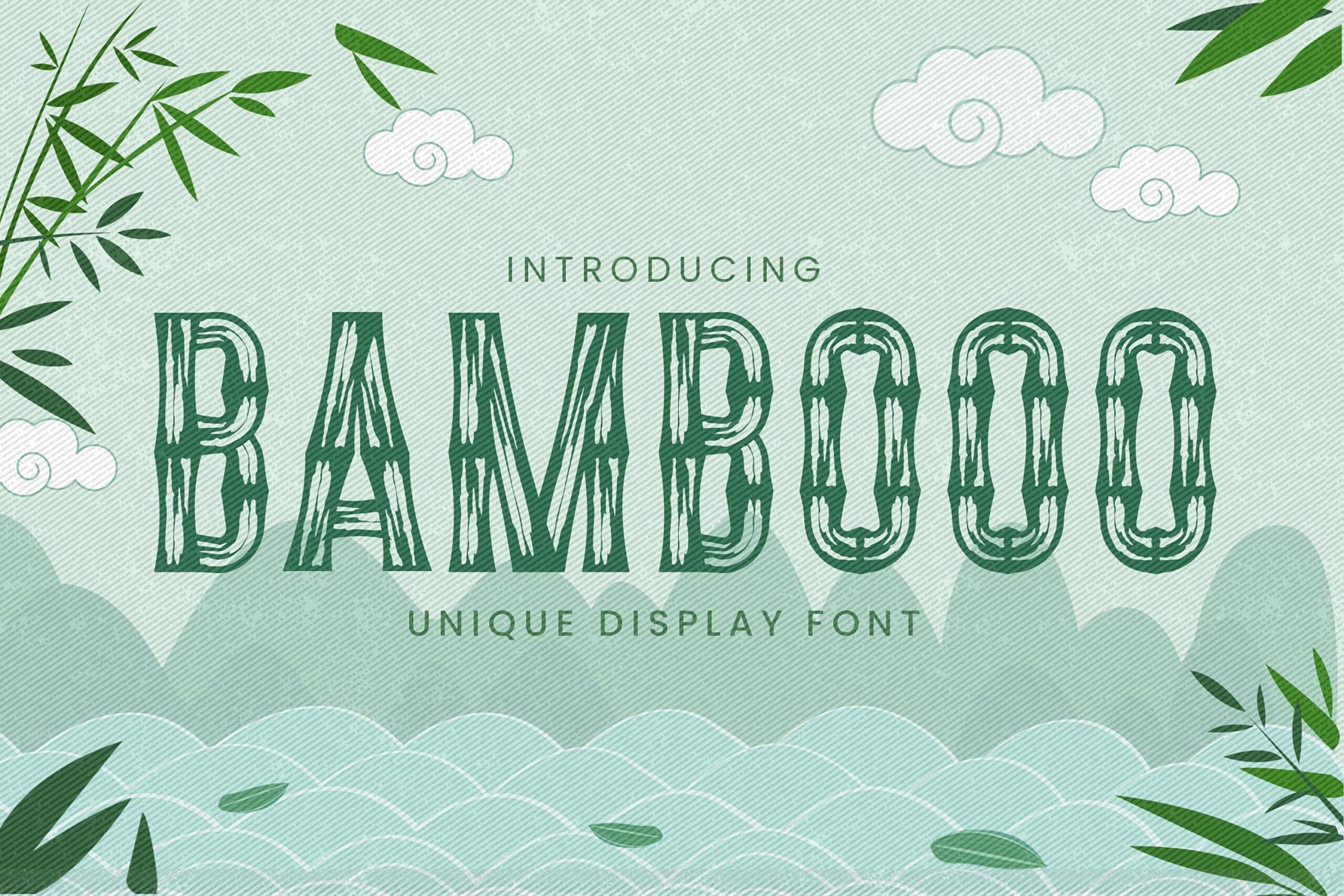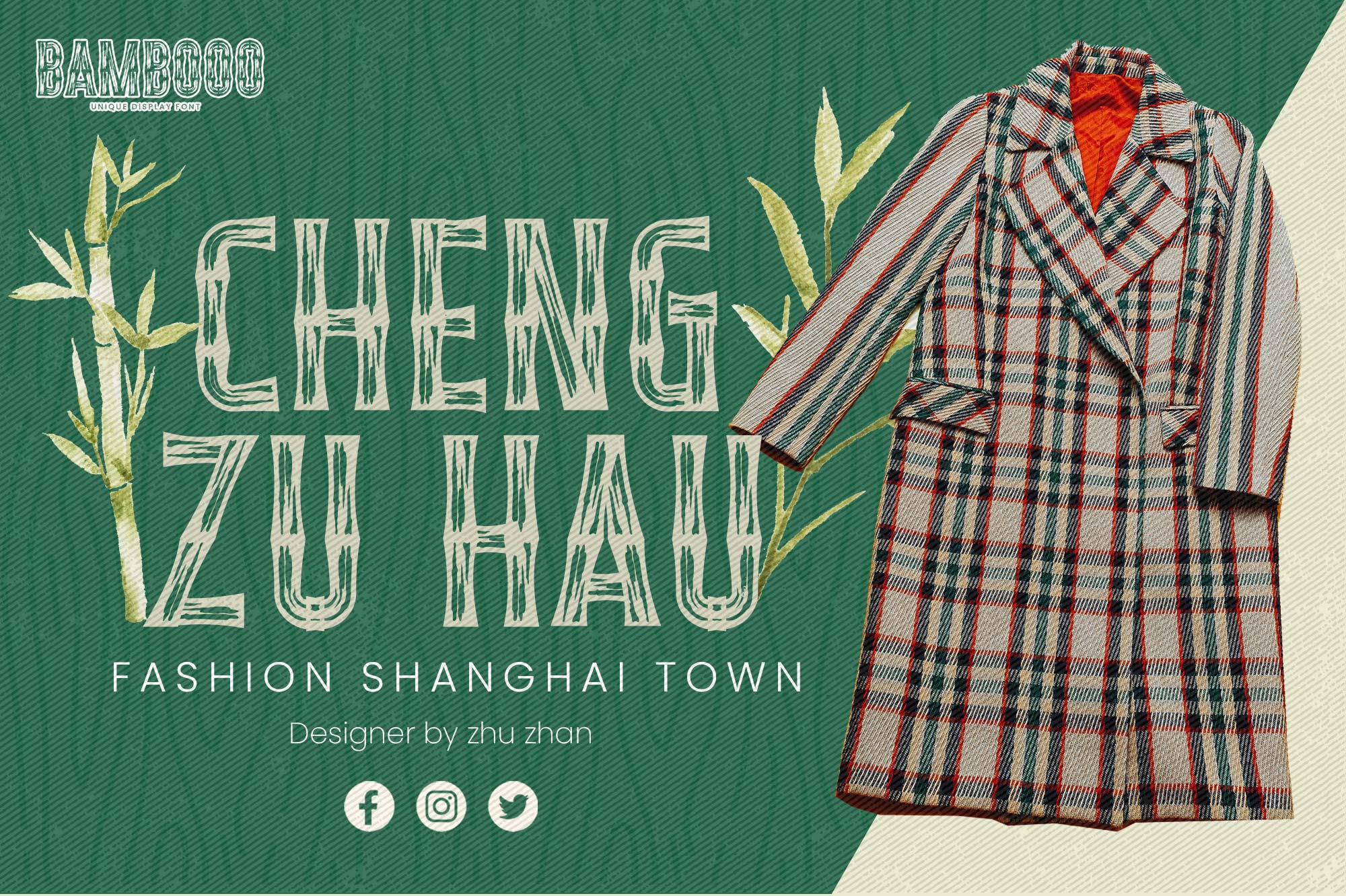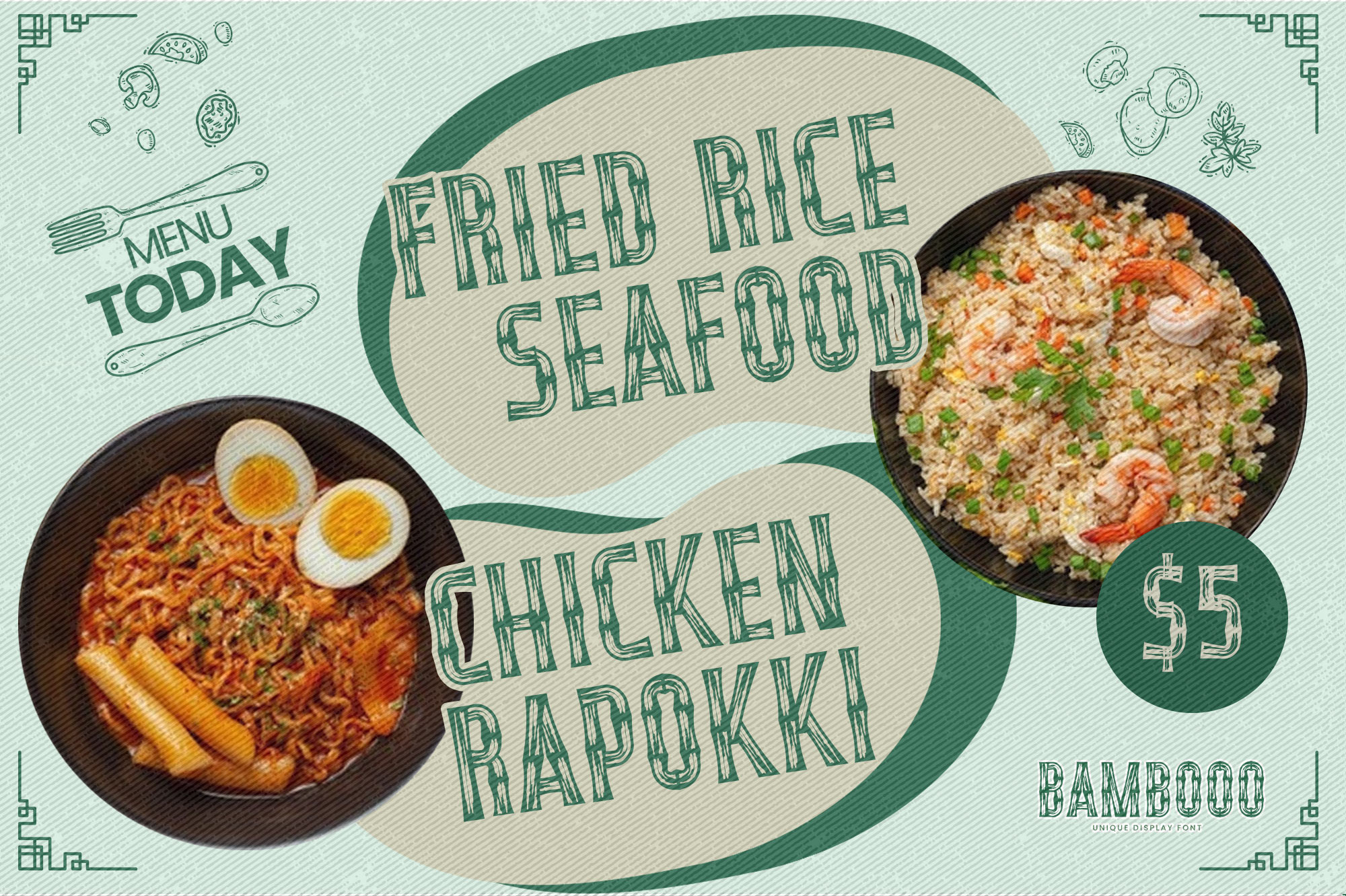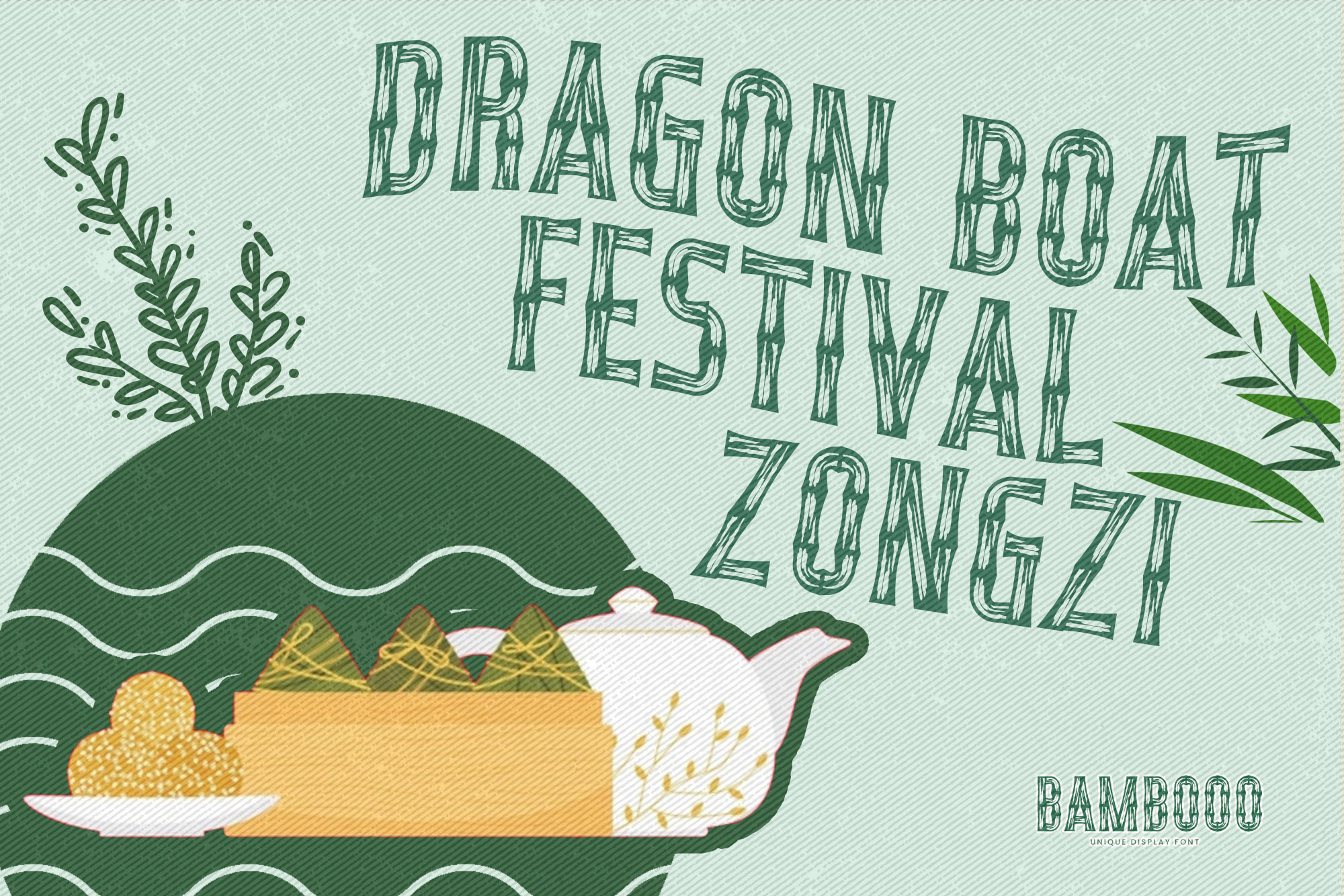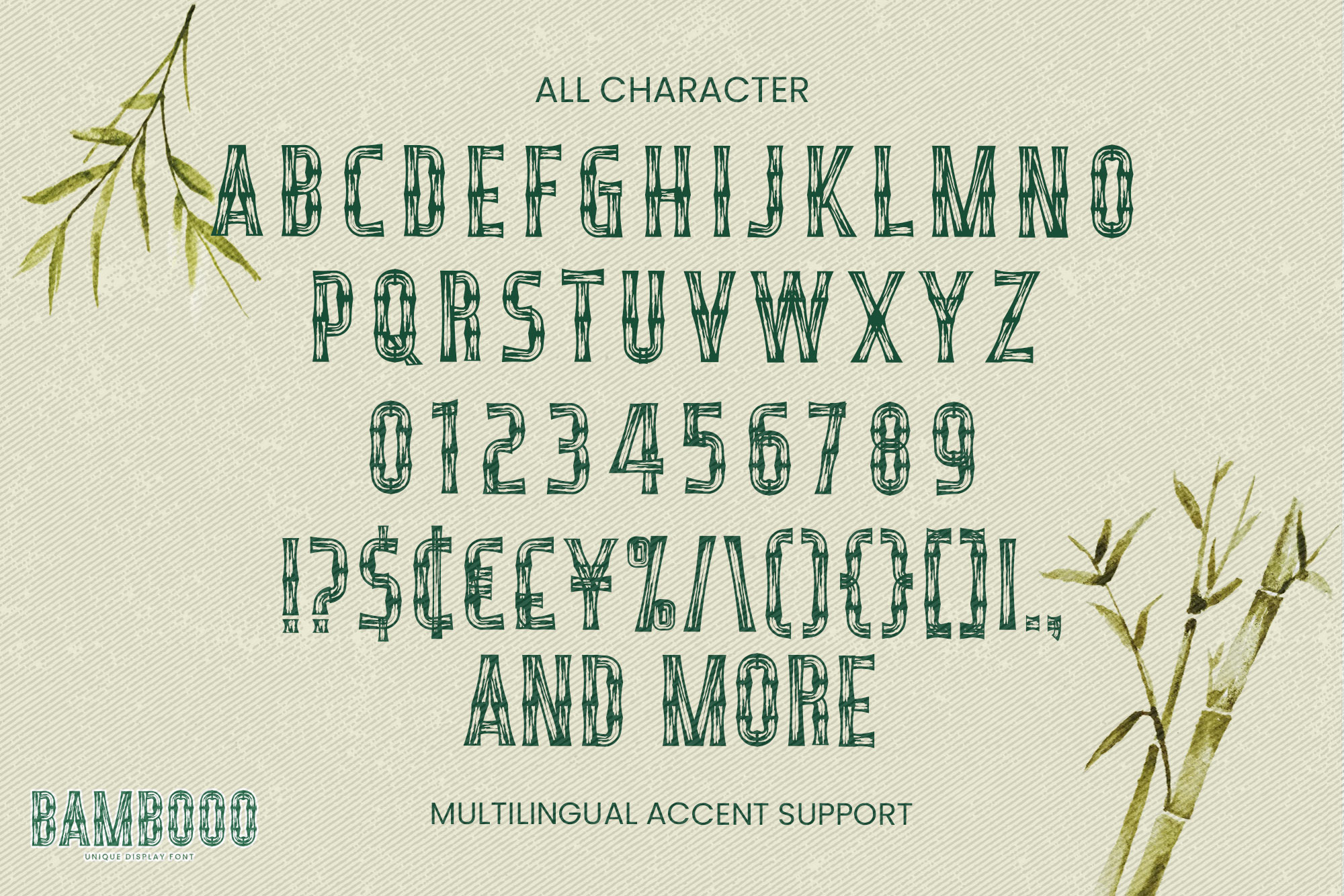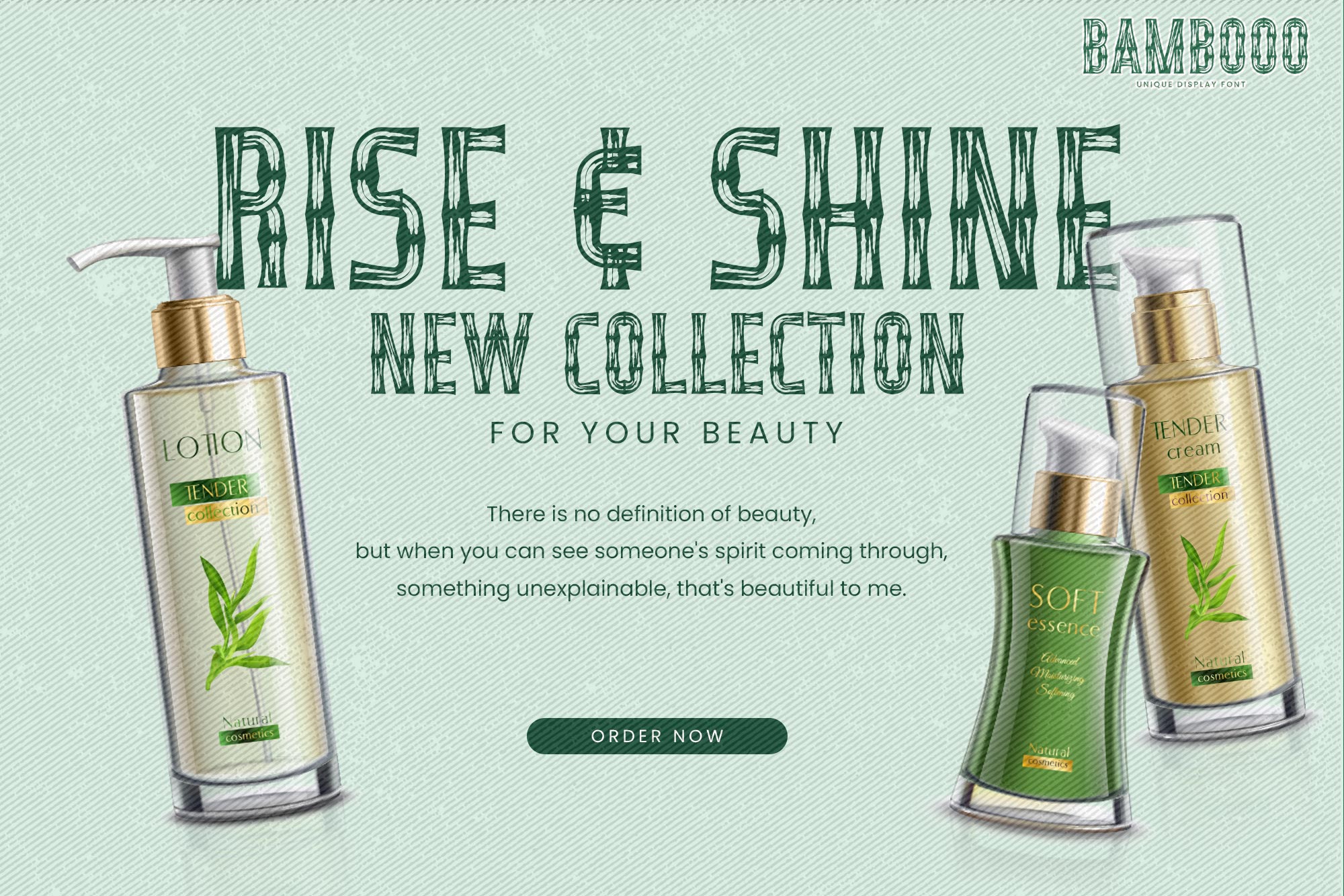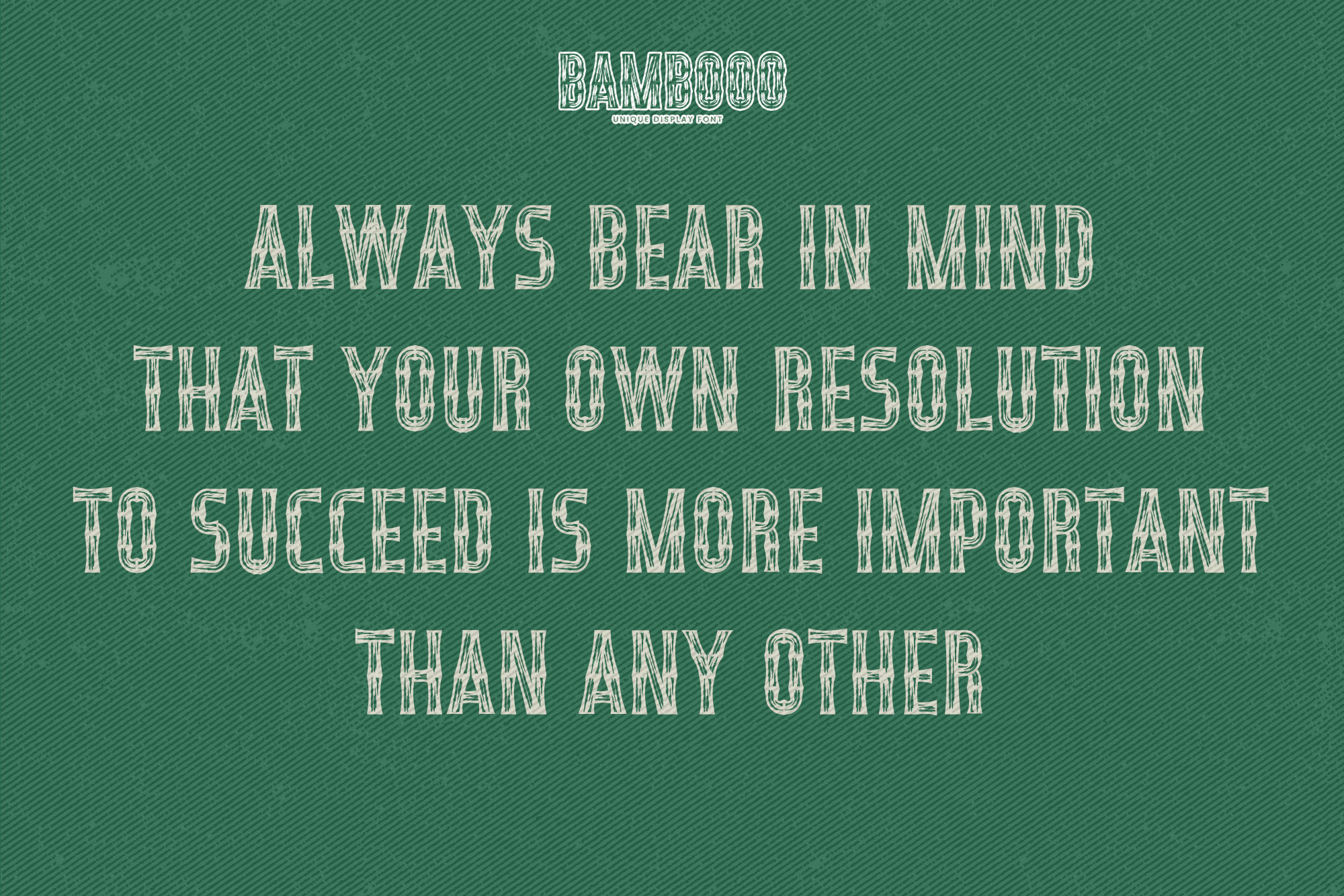
Bambooo – Unique Display Font ,authentic font is an that is written casually and quickly.
That is why Bambooo has natural and unique characteristic more natural look to your text with a more modern look to your text. Perfect for designs, branding projects, Logo design,Quotes product packaging and another Project that require font.